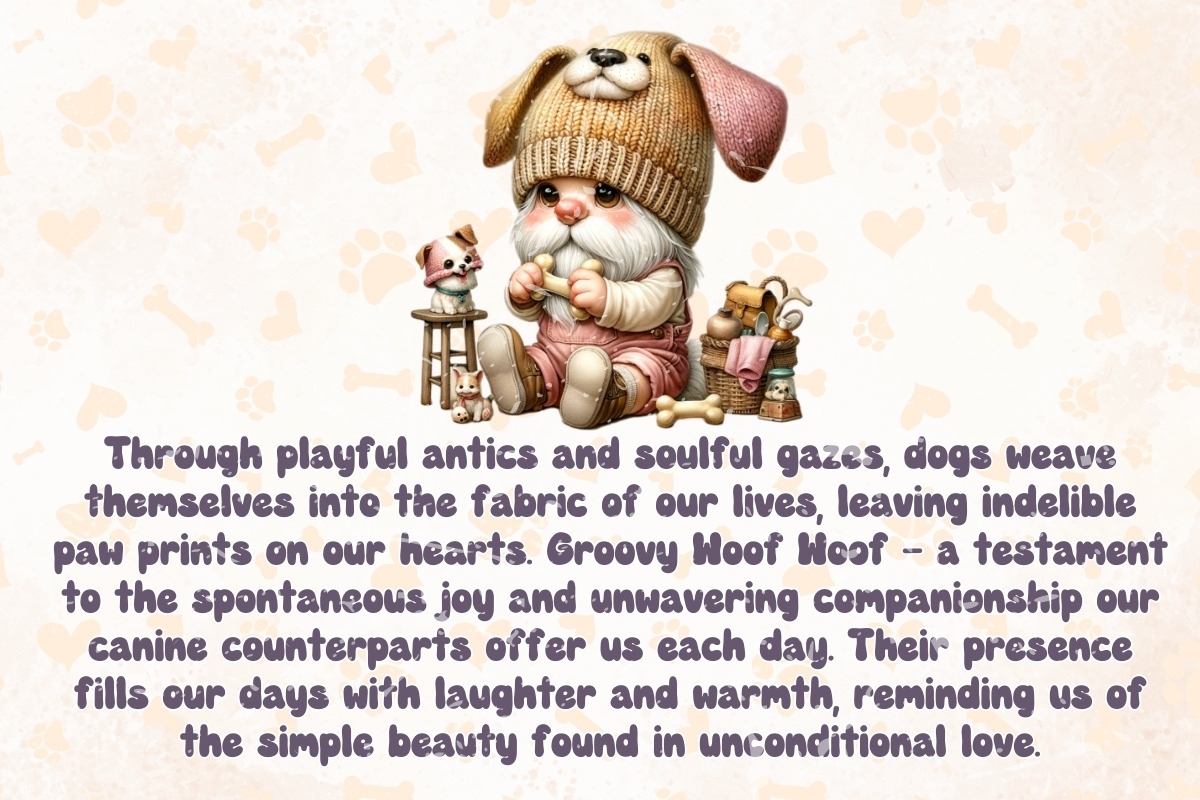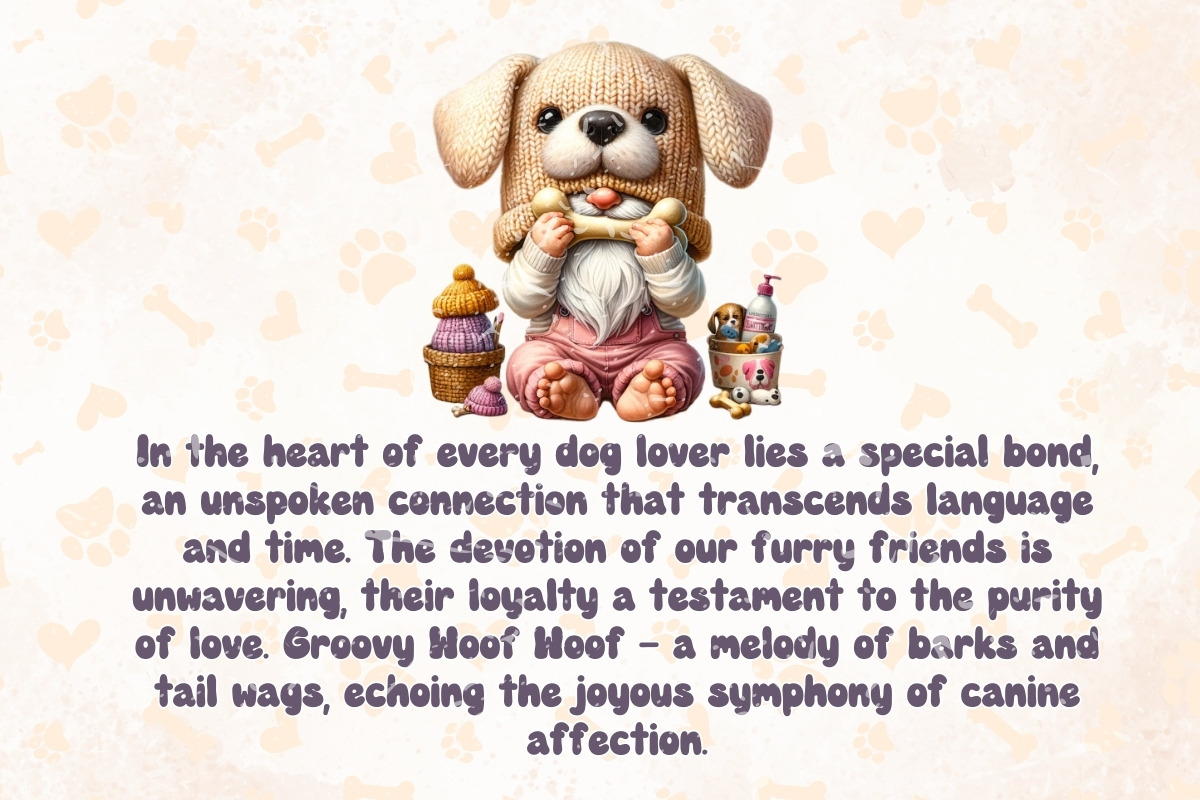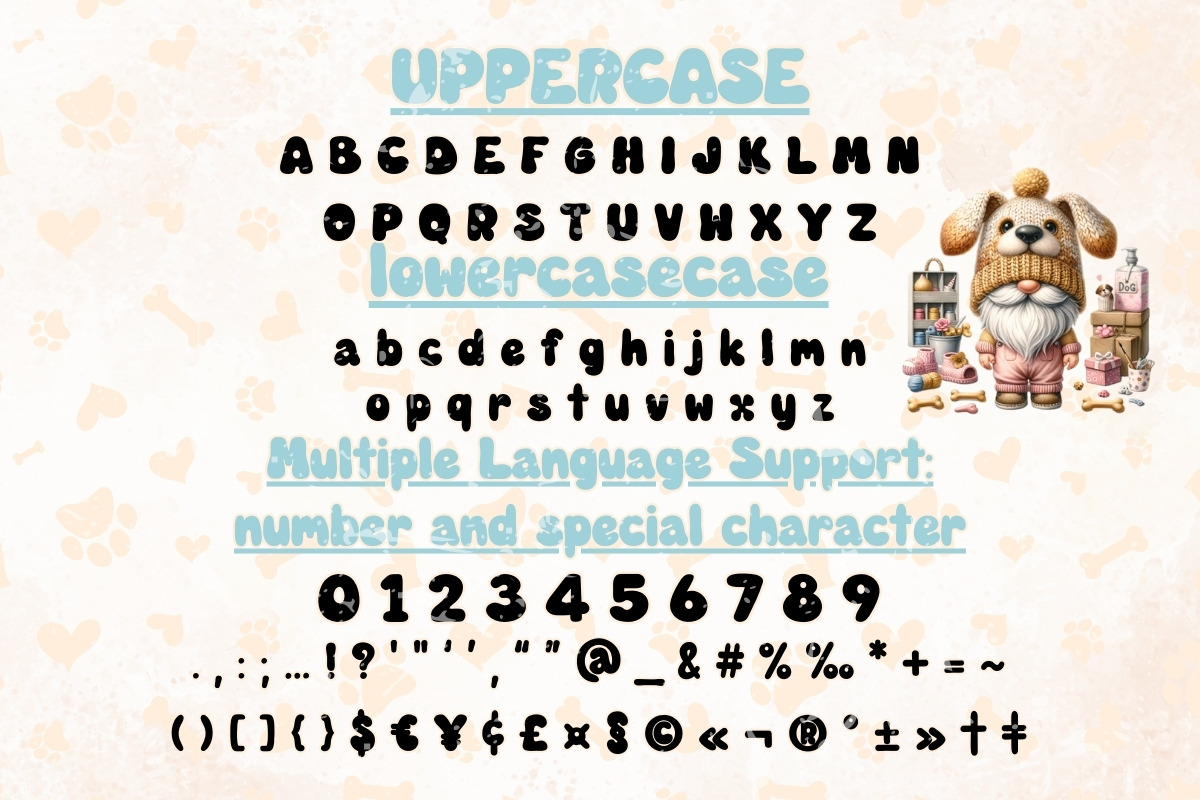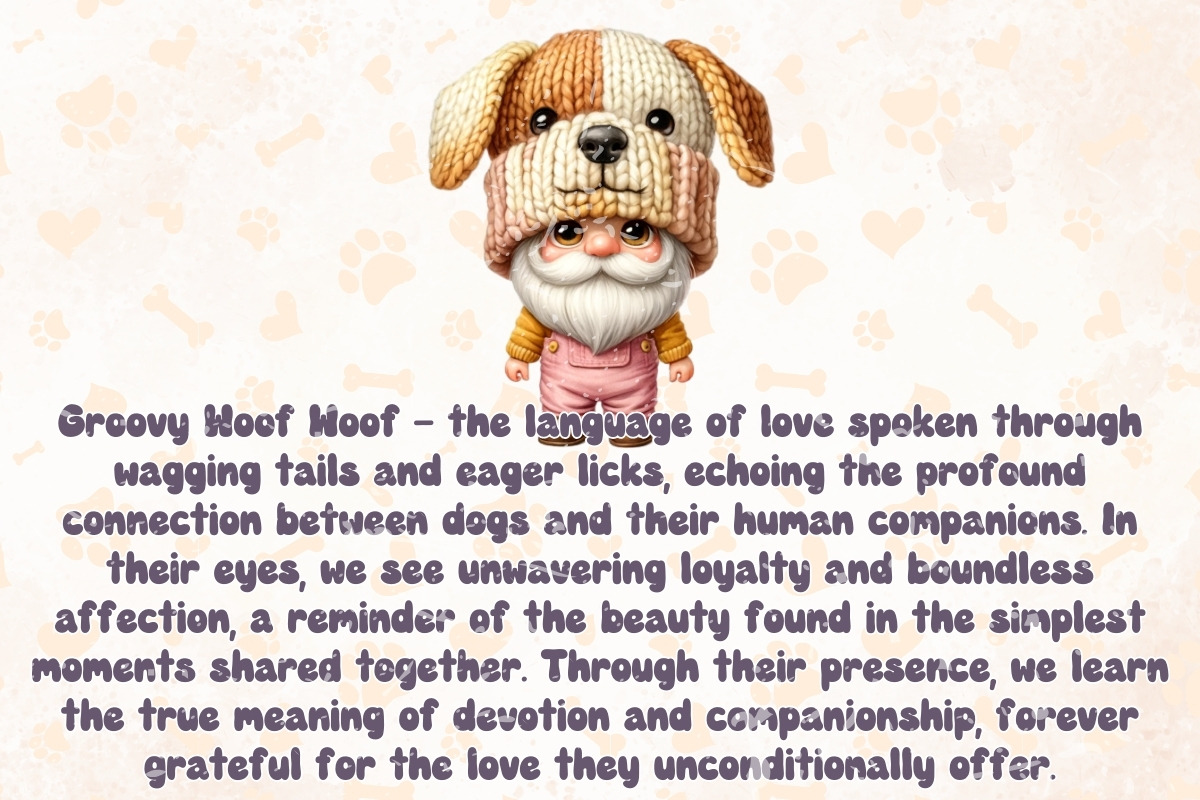
Groovy Woof Woof - Handwritten
"Introducing Groovy Woof Woof, the perfect font to add a touch of whimsy and charm to your designs. With its playful strokes and adorable curls, this handwritten font brings a sense of joy and friendliness to any project. Whether you're creating invitations, greeting cards, or social media posts, Groovy Woof Woof will instantly elevate your design with its delightful personality.